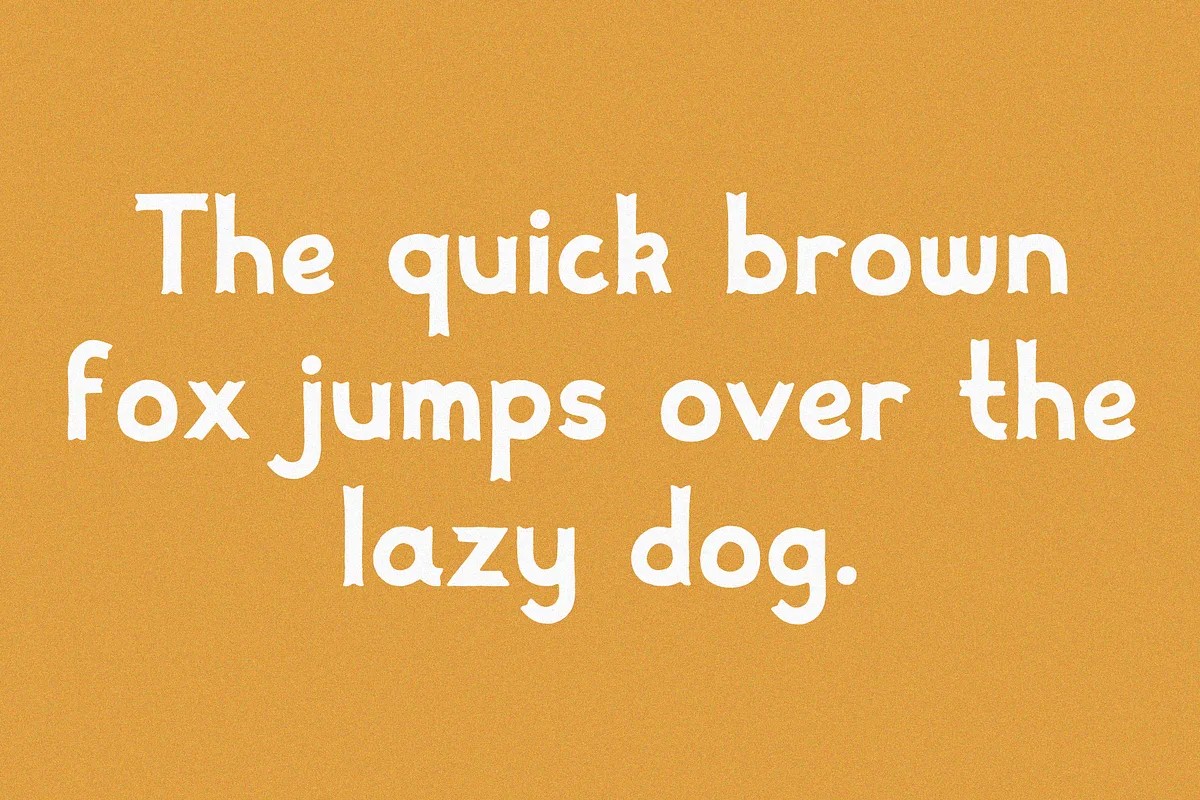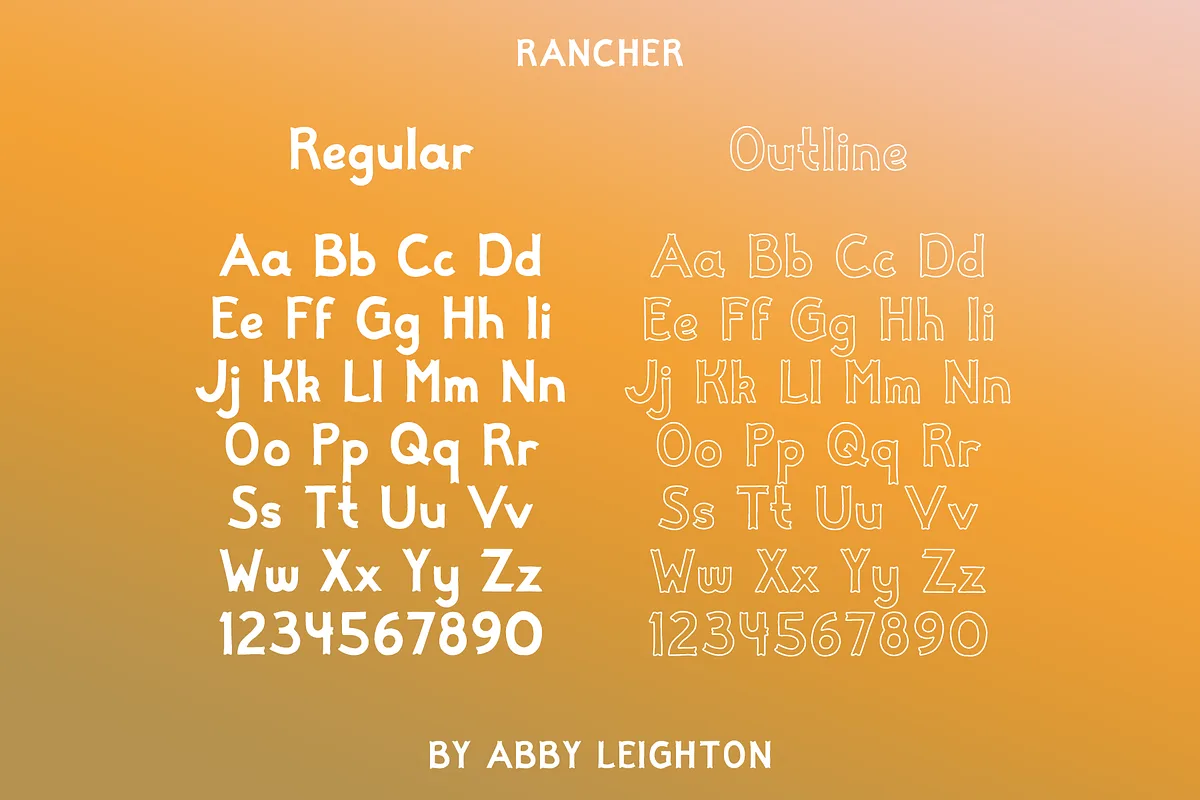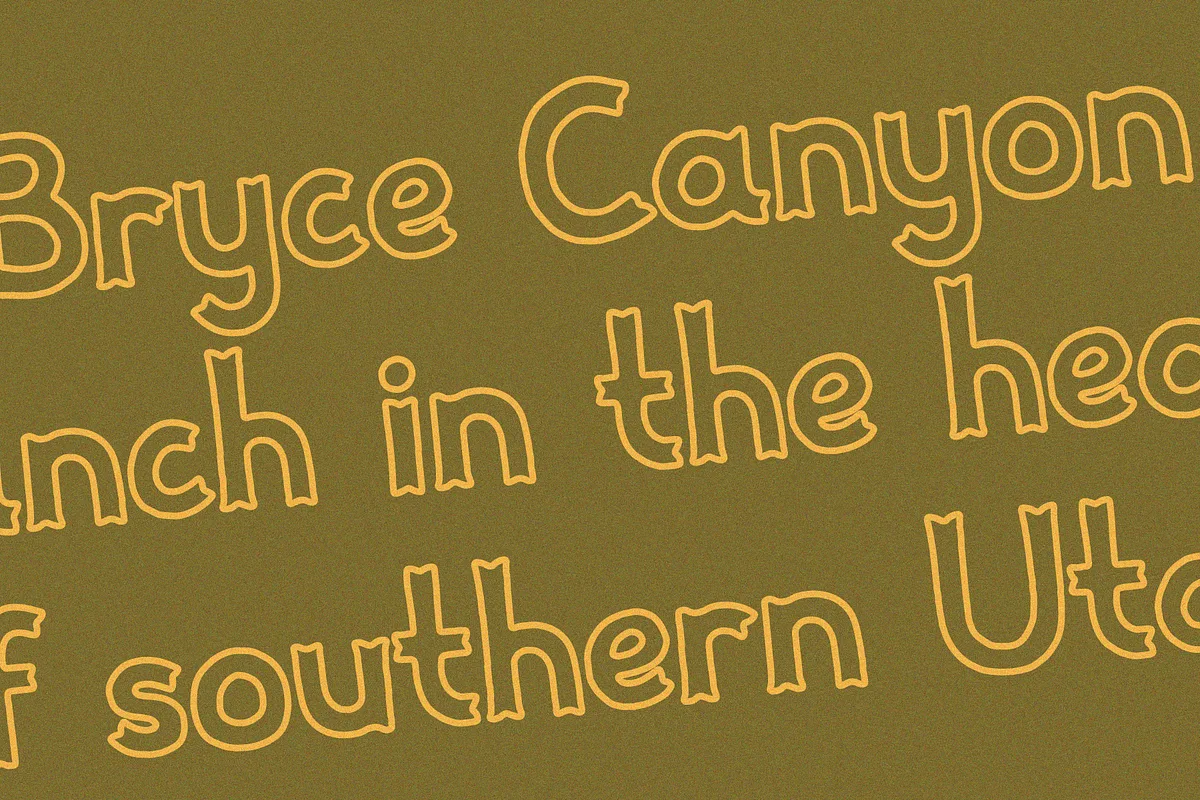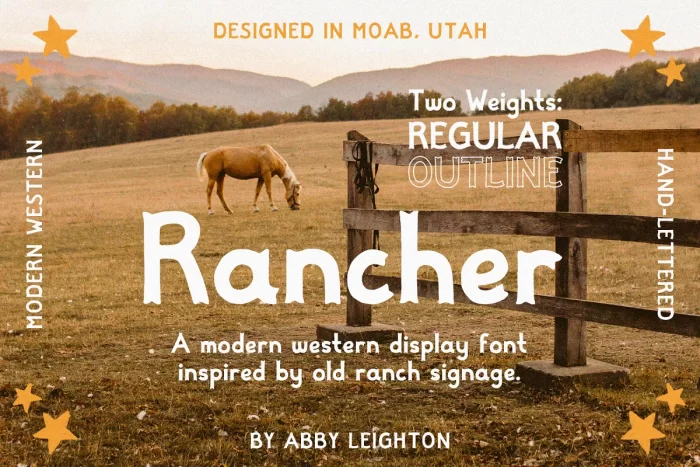
Rancher is a modern western display font inspired by old ranch signage. It’s fun, round letters combined with the indented serifs make this a unique, hand-lettered typeface to use in your next project.
This font allows versatile design options, being the perfect tool in creating bold logos, headers, posters and stand out packaging designs.